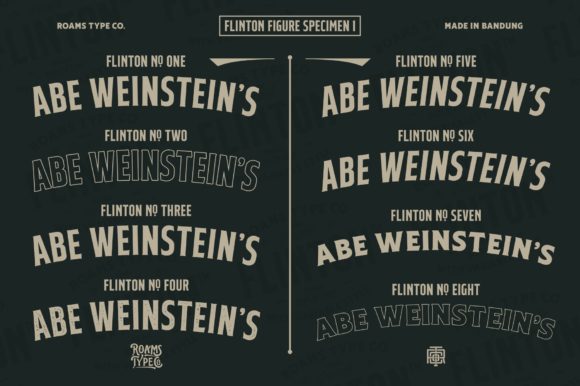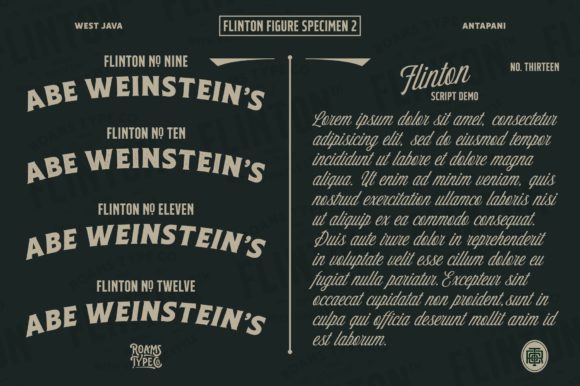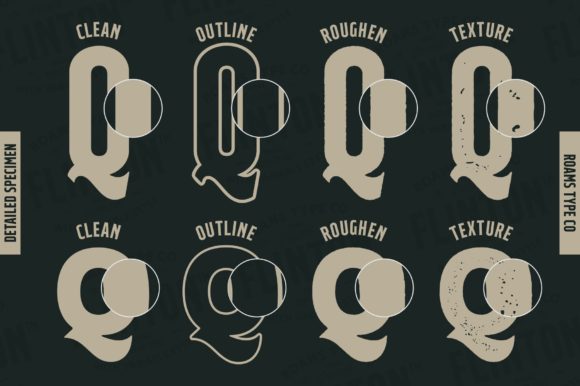
Flinton Family Font
About the Flinton Family Font
Step up your design game with Flinton Family Font, a font that exudes confidence and style. Flinton is a basic vintage-looking font family including serif and script with several variants. This font is suitable for designs that have elements of Vintage Concepts, such as logotypes, posters, merchandise designs, magazines, etc.
Flinton’s vintage aesthetic makes it ideal for projects requiring a nostalgic feel, particularly in headlines, logos, and short-form text on posters or packaging. Its serif and script variations offer versatility, allowing for both strong statements and elegant flourishes. However, the detailing in the serif and the stylistic flourishes of the script make it less suitable for body text or UI elements where legibility at smaller sizes is crucial.
For optimal visual impact, pair Flinton’s serif with a clean sans-serif like Open Sans for body copy or a geometric sans-serif like Futura for a more modern contrast. The script variant pairs well with a simple, neutral serif for a balanced, traditional feel. Avoid pairing it with other highly decorative fonts, as this would create visual overload.
Flinton projects a confident, slightly nostalgic personality. It’s well-suited for brands emphasizing heritage, craftsmanship, or a vintage-inspired aesthetic, such as coffee shops, breweries, clothing brands, or boutique hotels.
Flinton Family Font Usage Examples
Flinton Family Font Example